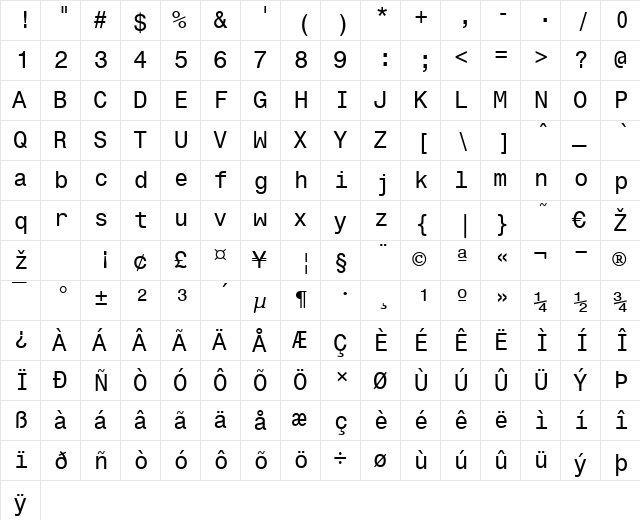
r_ansi Roman
Design Context for r_ansi Typeface
r_ansi takes a measured approach to typography — its balanced proportions and neutral character make it a reliable workhorse for both digital and print work.